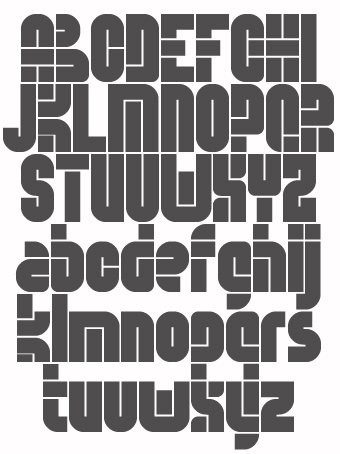
Tarmac
Very nice work! This is done with real curves? I wonder how you got such narrow spaces. K/k seem to have a space that's too thin.
Interesting and imaginative. 10/10
@Yautja: Thanks, I was inspired by cayo's use of the 1.78 filter setting in
funkadelia
Try it out, it opens up a whole new world of possibilities.
very nice!
There must be another way to figure W. Excellent work otherwise.
Nice work! 10/10!
I tried recreating "Solida" with 1.75~1.8 filters, but...
Very nice! I'm already do this experiment before for my font "Mr. Ken", but yours is more innovative :)
Congratulations! FontStruct Staff have deemed your FontStruction worthy of special mention. “Tarmac” is now a Top Pick.
@ demonics: Thanks, any suggestions for that W?
wow impressive technique, the font is great bravo